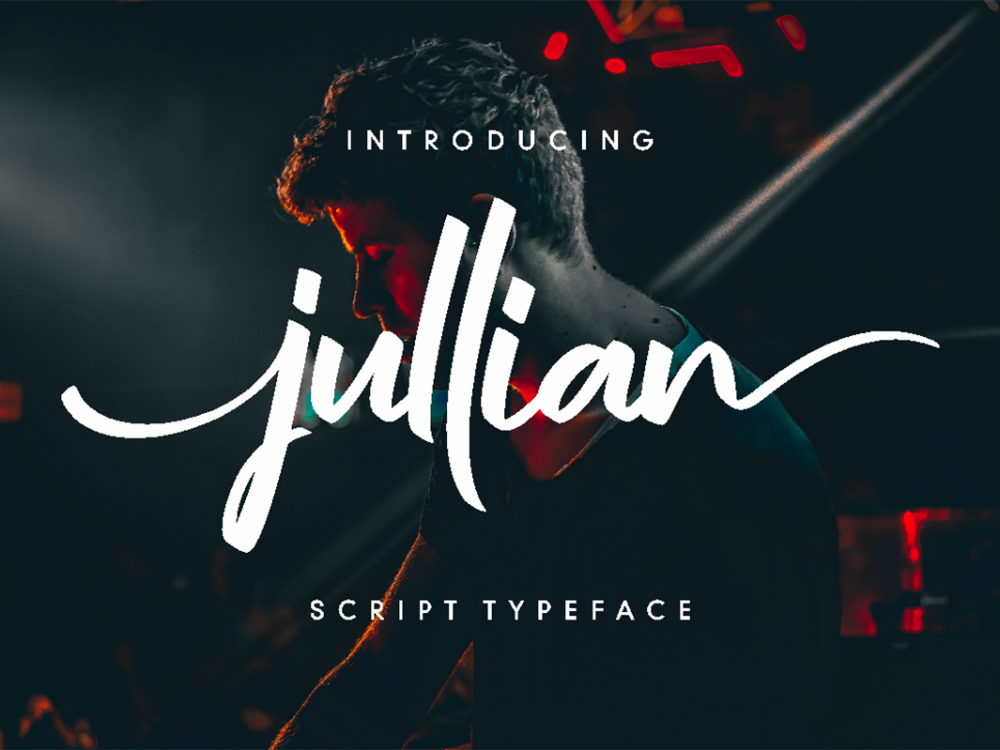
Jullian Script Free Font
Jullian Script Free Font is an interesting script font that stands out for its calligraphic style and is very well suited for creating various design projects in a modern style. You can use this font to create memorable posters, wedding invitations, logotype, name tags, short quotes, cards, branding, flyers, and more. If you like it don’t forget to check out the full version.